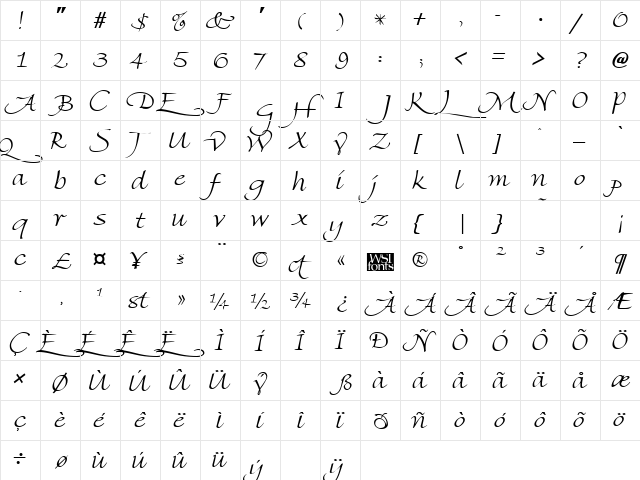
PT Florentine Swash Caps Regular
Design Context for PT Florentine Swash Caps Typeface
PT Florentine Swash Caps brings a calligraphic fluidity to the page — its connecting strokes and expressive curves give it an unmistakably human quality.
Font Pairing: Combine PT Florentine Swash Caps with a simple geometric sans for maximum contrast — the tension between flowing curves and clean structure is a classic typographic pairing.
Pro Tip: Pair PT Florentine Swash Caps with a clean sans-serif for supporting text. The contrast between fluid script and geometric structure creates an elegant typographic hierarchy.